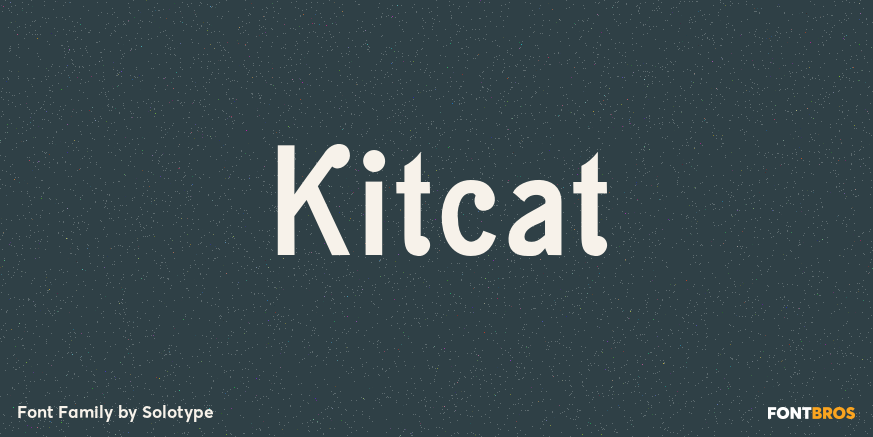
HomeFont BrosHistoricalKitcat HistoricalSans Serif Kitcat FacebookXPinterestWhatsApp 1 of 1 About Kitcat This was a favorite of the old time job printers;  DOWNLOAD NOW People also explored Bubble Tea, Cute and Bouncy Font Goldstick Font Kamely Font Ophelia Jennifer Font Santama Font Molliquam Font Unicorn Confetti Font Jumps Higher Font Maghito Agatte Font 307 0 TagsKitcatKitcat Font Previous articleCarrot JuiceNext articleSpacebeach LEAVE A REPLY Cancel reply Comment: Please enter your comment! Name:* Please enter your name here Email:* You have entered an incorrect email address! Please enter your email address here Website: Save my name, email, and website in this browser for the next time I comment. Personal Use Free Lynoselt Personal Use Free Read more about this font Mullia Personal Use Free Read more about this font Beat My Guest Personal Use Free Read more about this font BD Beans Personal Use Free Read more about this font BLOG Modern Sans-Serif Fonts That Brands Love in 2025 In 2025, modern sans-serif fonts remain a top choice for brands looking to project clarity, professionalism, and... 5 Fonts That Will Dominate Design Trends in 2026 Free vs Paid Fonts: Why Investing in Premium Fonts Is Worth It Exploring Font Trends